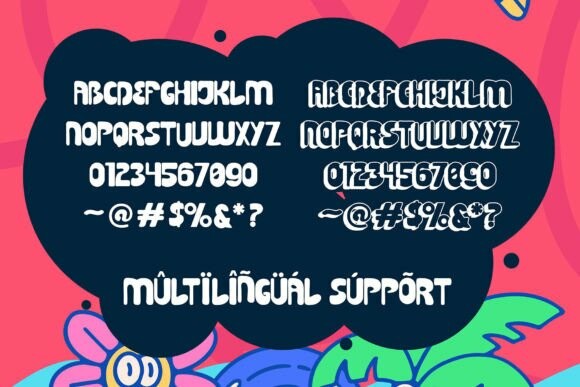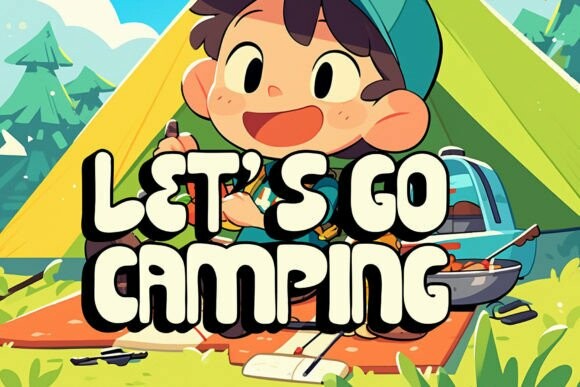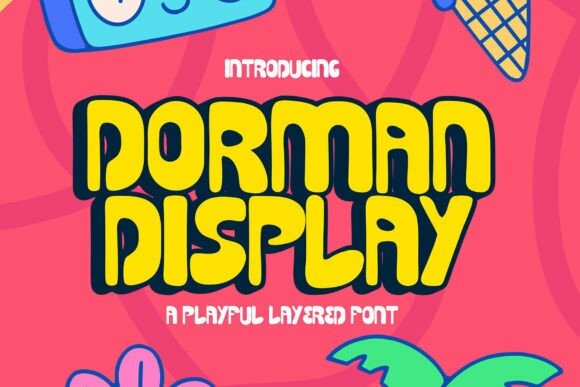
Dorman Display Font
Dorman Display Font is a delightfully inventive display font, crafted to inject your projects with an essence of fun and creativity. Possessing a brightly spirited style and a cast of whimsical characters, it perfectly complements children’s narratives, vivacious posters, festivity invitations, or any design needing a hearty dash of energy and life. Its distinctive, attention-grabbing design infuses a dynamic and exuberant vibe into your text, setting it apart to seize your reader’s gaze. With the versatility to embellish headlines or add decorative charm, Dorman Display ensures your projects radiate an enchanting, imaginative edge.